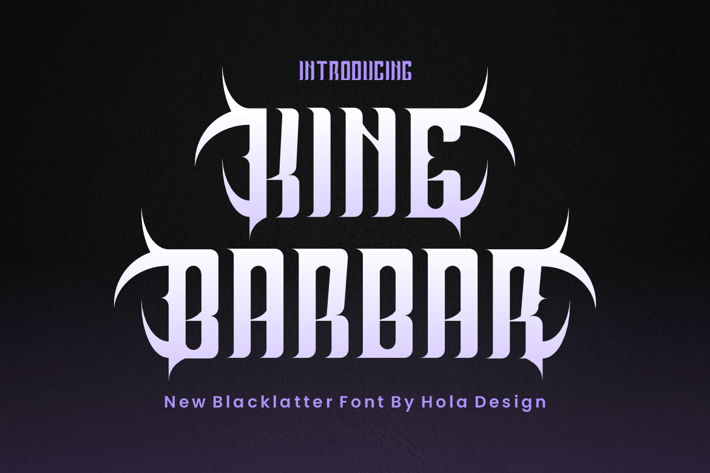
King Barbar - Decorative Font
King Barbar Font is unique . Ready to use for your design like labeling, movie sceen, poster, movie title, gigs, album covers, logos, and much more.